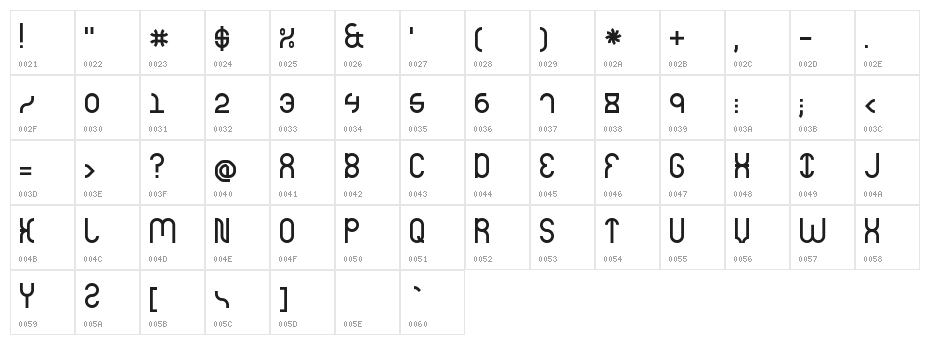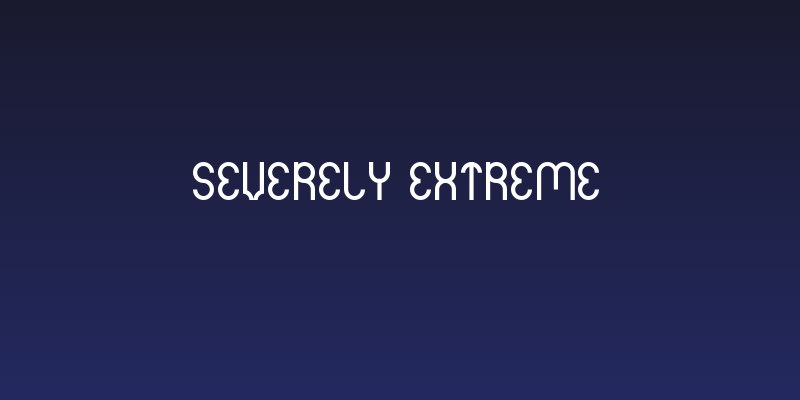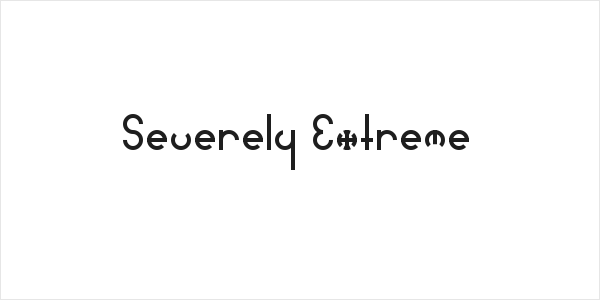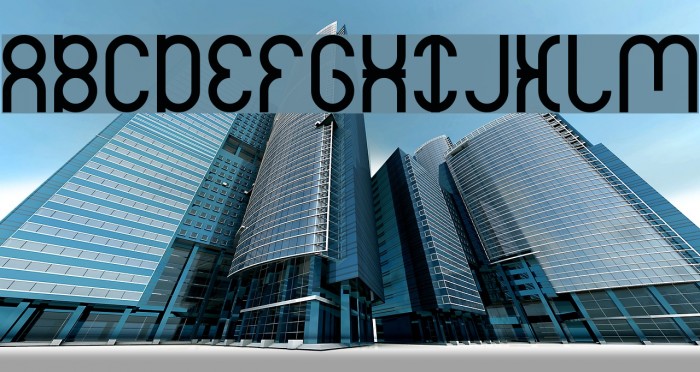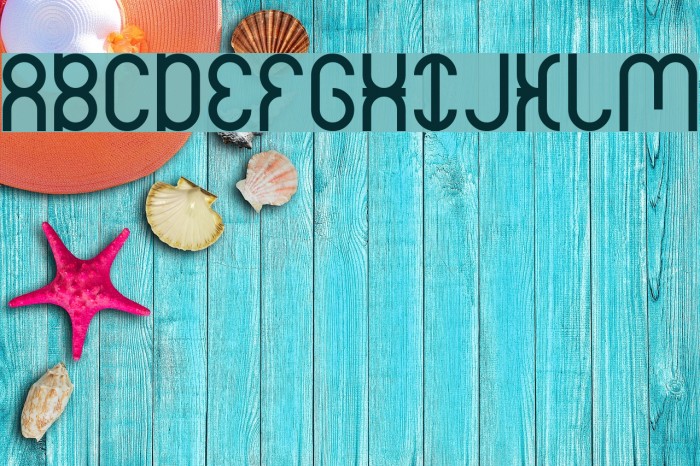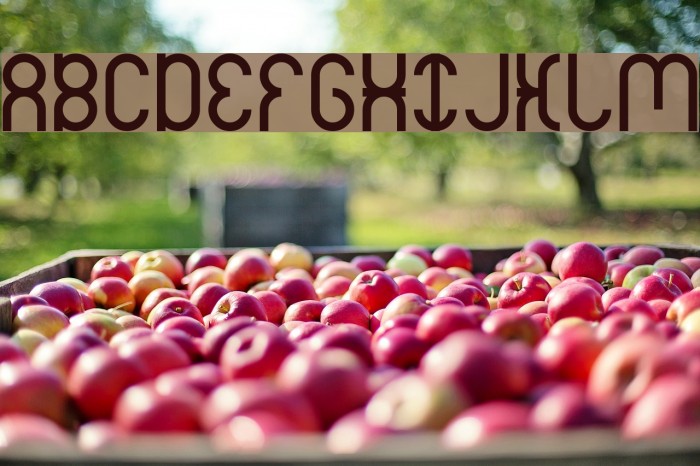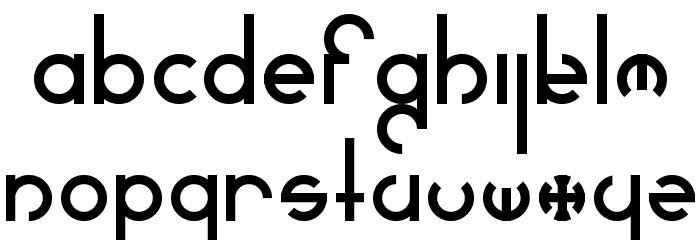
Severely Extreme Font
Severely Extreme Description
This font features a highly stylized and geometric design, characterized by its unique and bold letterforms. The uppercase letters exhibit a strong, symmetrical structure with rounded edges and distinctive cutouts, creating a futuristic and artistic appearance. The lowercase letters maintain this geometric style, with some characters displaying unconventional shapes that add to the font's creative flair. Numbers and special characters are equally bold and follow the same design principles, ensuring consistency throughout. The overall look is modern and eye-catching, making it suitable for projects that require a standout visual impact.
| Proposed Projects | Ideal for branding, posters, album covers, and any project needing a modern, artistic touch. |